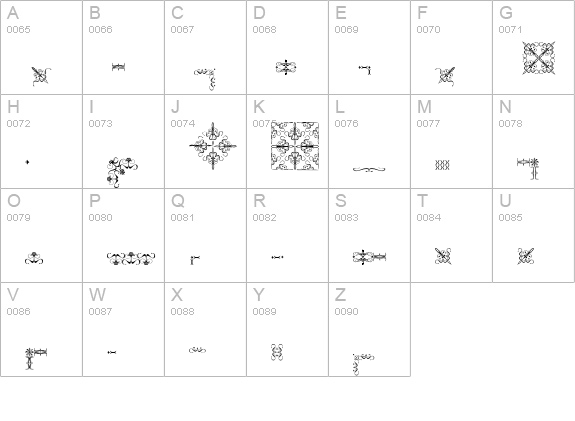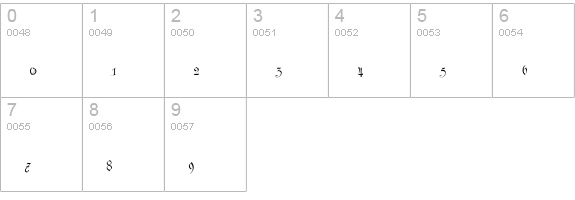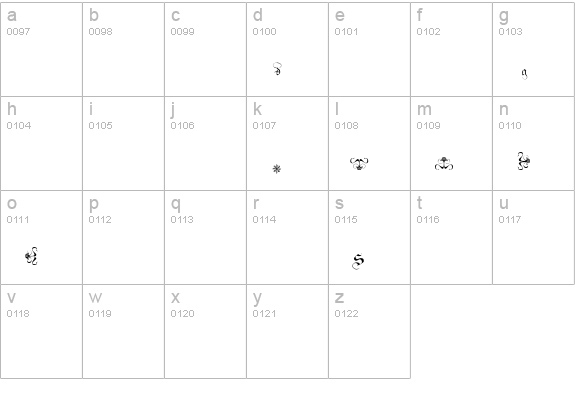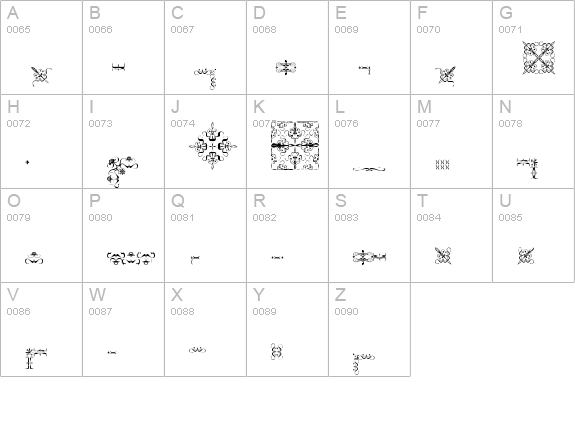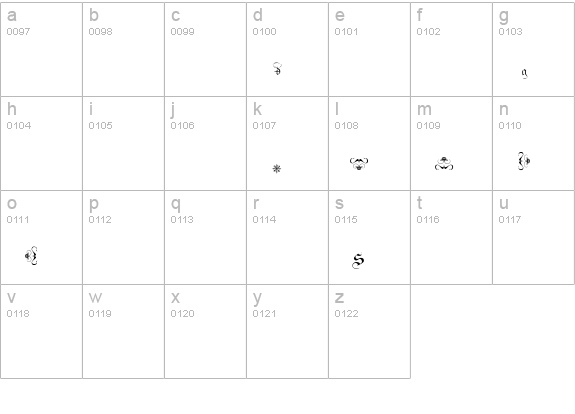
Carol Extras Font Details
Introducing Carol Extras font, a whimsical and charming typeface that will add a touch of playfulness to your designs. This delightful font features a variety of fun and creative extras, including doodles, ornaments, and decorative elements that will take your projects to the next level. Whether you're designing invitations, greeting cards, or social media graphics, Carol Extras is the perfect choice to make your creations stand out. And the best part? Carol Extras font is completely free to download at FontsMarket.com. So why wait? Add a touch of joy and creativity to your designs with Carol Extras today!